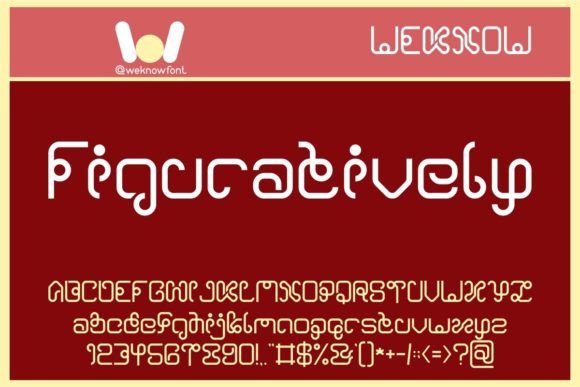
Introducing Figuratively, the display font that will elevate your Instagram videos to a whole new level. This fancy font is the perfect choice for capturing attention and creating a lasting impression on your audience.
With its bold strokes and elegant curves, Figuratively is sure to make your videos stand out from the crowd. It's the perfect font for creating eye-catching headlines, captivating captions, and stunning visuals that will leave your followers wanting more.
Not only is Figuratively visually appealing, but it's also incredibly versatile. Whether you're creating videos for your business, your personal brand, or just for fun, Figuratively can help you achieve your desired look and feel.
With Figuratively, you can:
* Create eye-catching headlines that grab attention
* Write captivating captions that keep your audience engaged
* Design stunning visuals that will make your videos stand out
* Express your creativity and make a lasting impression
If you're looking for a font that will help you take your Instagram videos to the next level, look no further. Figuratively is the perfect choice for creating videos that are both visually appealing and engaging.